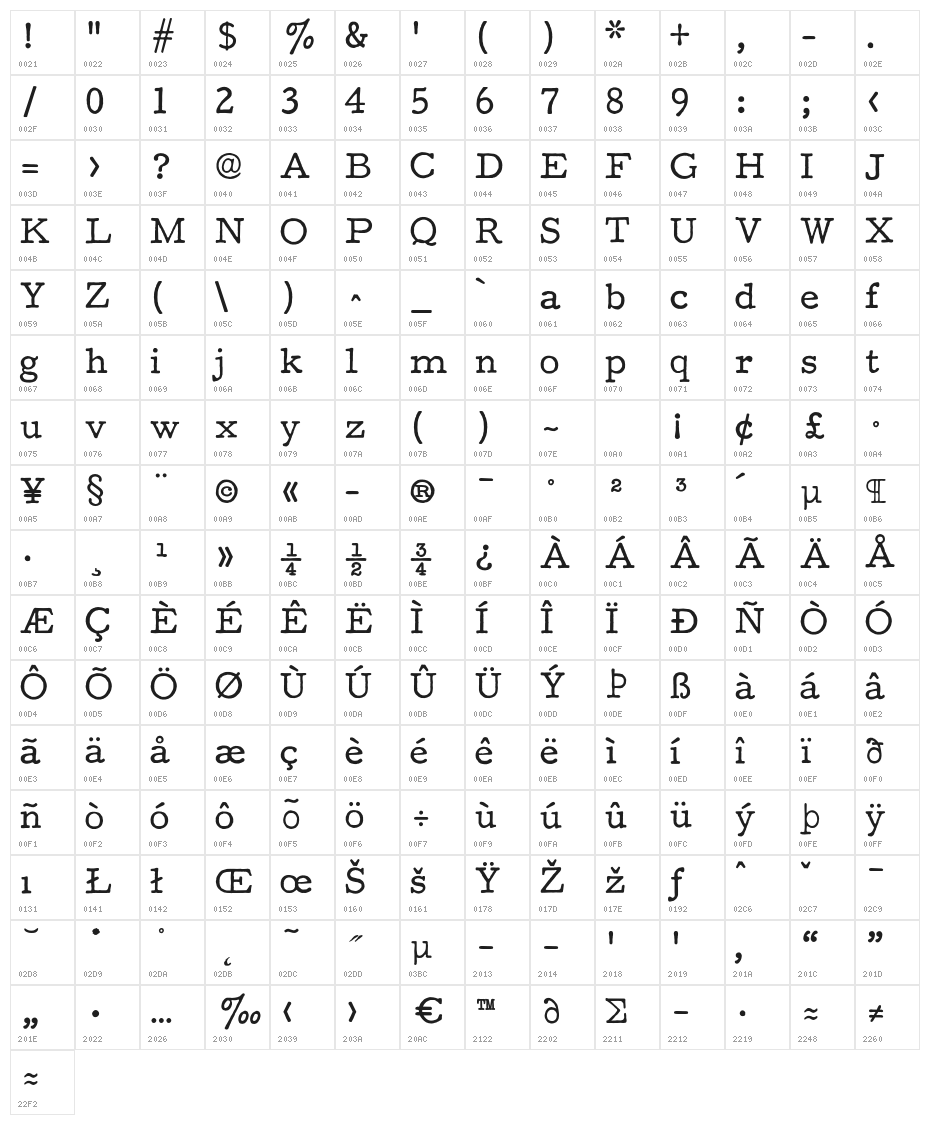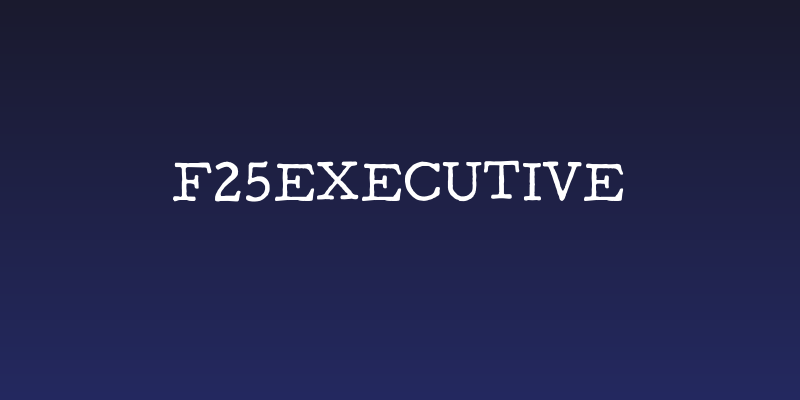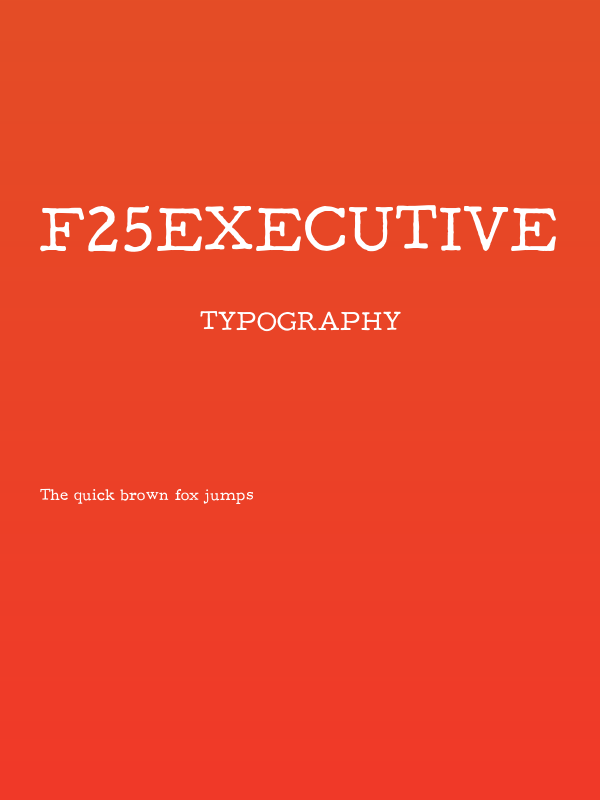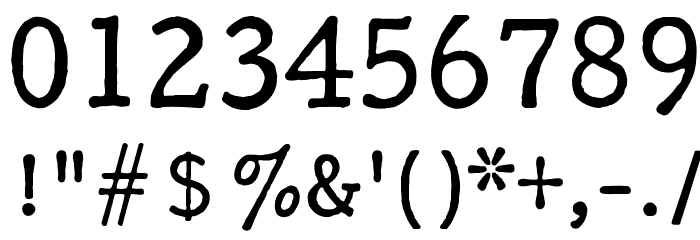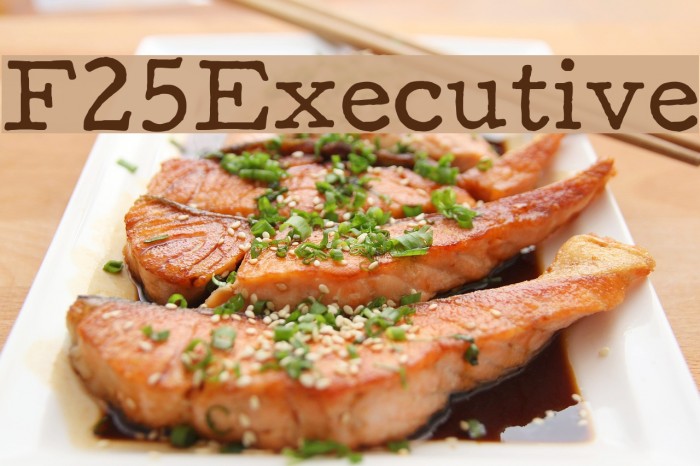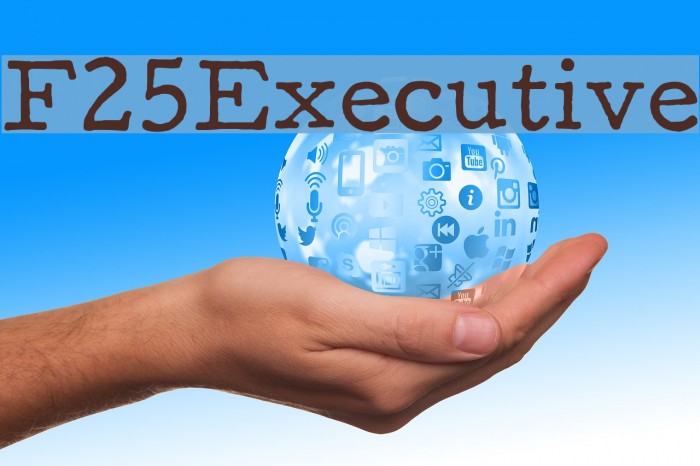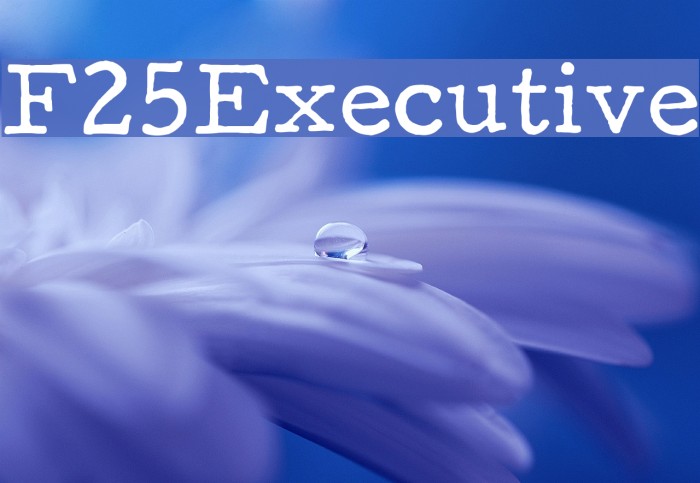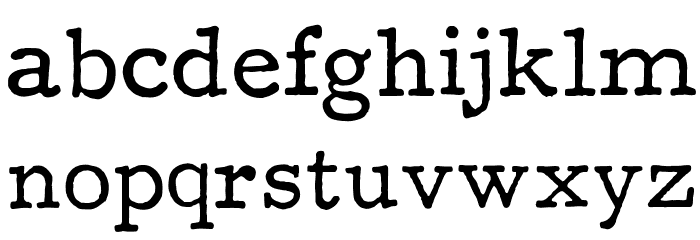
F25Executive Font
F25Executive Description
This font exhibits a classic slab serif style, characterized by its bold, block-like serifs and uniform stroke width. The uppercase letters are robust and commanding, while the lowercase letters maintain a consistent and balanced appearance. The numerals are clear and easily distinguishable, making them suitable for various applications. Special characters are well-integrated, ensuring versatility in design. The overall design is reminiscent of traditional typewriter fonts, offering a vintage yet timeless appeal. Its strong presence and readability make it ideal for both digital and print media.
| Overall Style | Vintage |
| Use Case | Headlines, Body text, Logos |
| Proposed Projects | Ideal for editorial design, branding, posters, and any project requiring a strong, classic typeface. |